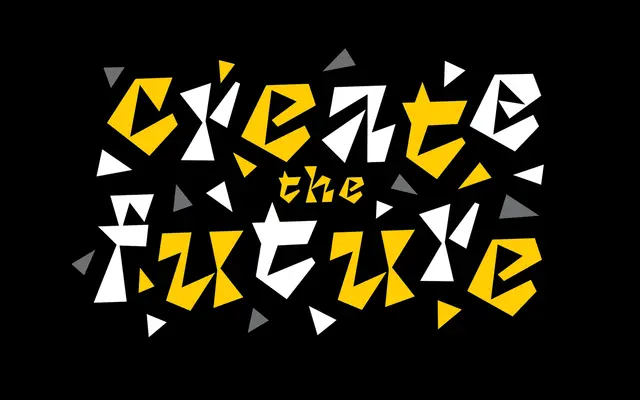
Dilemma
A double-axis variable font originally commissioned for the Creative Works 2023 design conference in Memphis, TN, with weight and italic axes spanning Regular to Black.
Created for the visual identity of Creative Works 2023, a Memphis-based design conference, the font operates across two variable axes controlling weight and italic. The family runs from Regular through Medium, Bold and Black, each with a corresponding italic, all accessible as a single variable font file. Its conference origins give it a focused, display-oriented character suited to identities and editorial headings.
A double-axis variable font with weight and italic axes, designed for conference branding; its expressive, high-contrast forms and variable nature place it firmly in the display category.